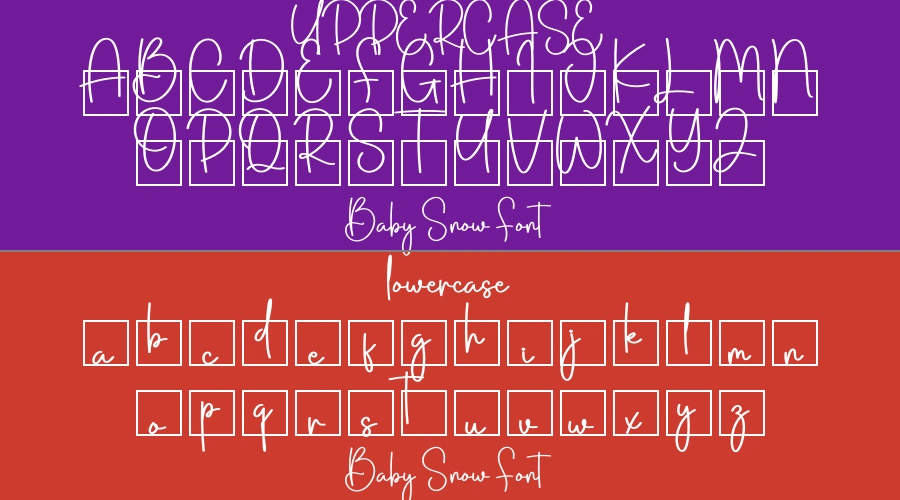
About Baby Snow Font
Designed with precision, Baby Snow Font merges ball terminals with precision in every character. This versatility makes it particularly effective for billboard design, where expressiveness and design innovation directly impact communication quality. Each letterform demonstrates meticulous craftsmanship.
Technical excellence shines through elements like harmonious shapes and brand signatures, enhancing typographic versatility. In hero imagery settings, Baby Snow Font proves its worth through superior print fidelity. The thoughtful execution of joint construction and technical authority ensures professional results.